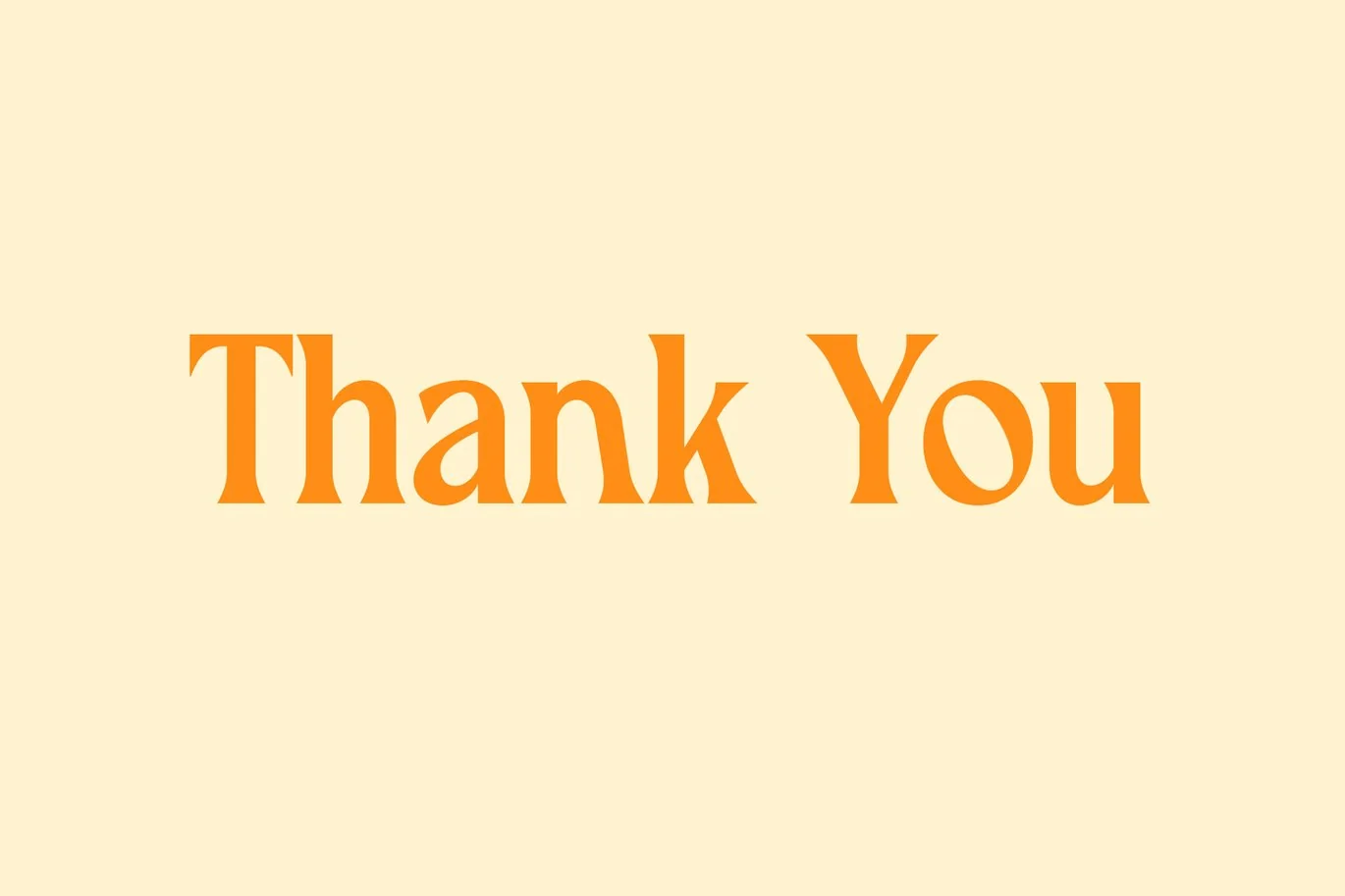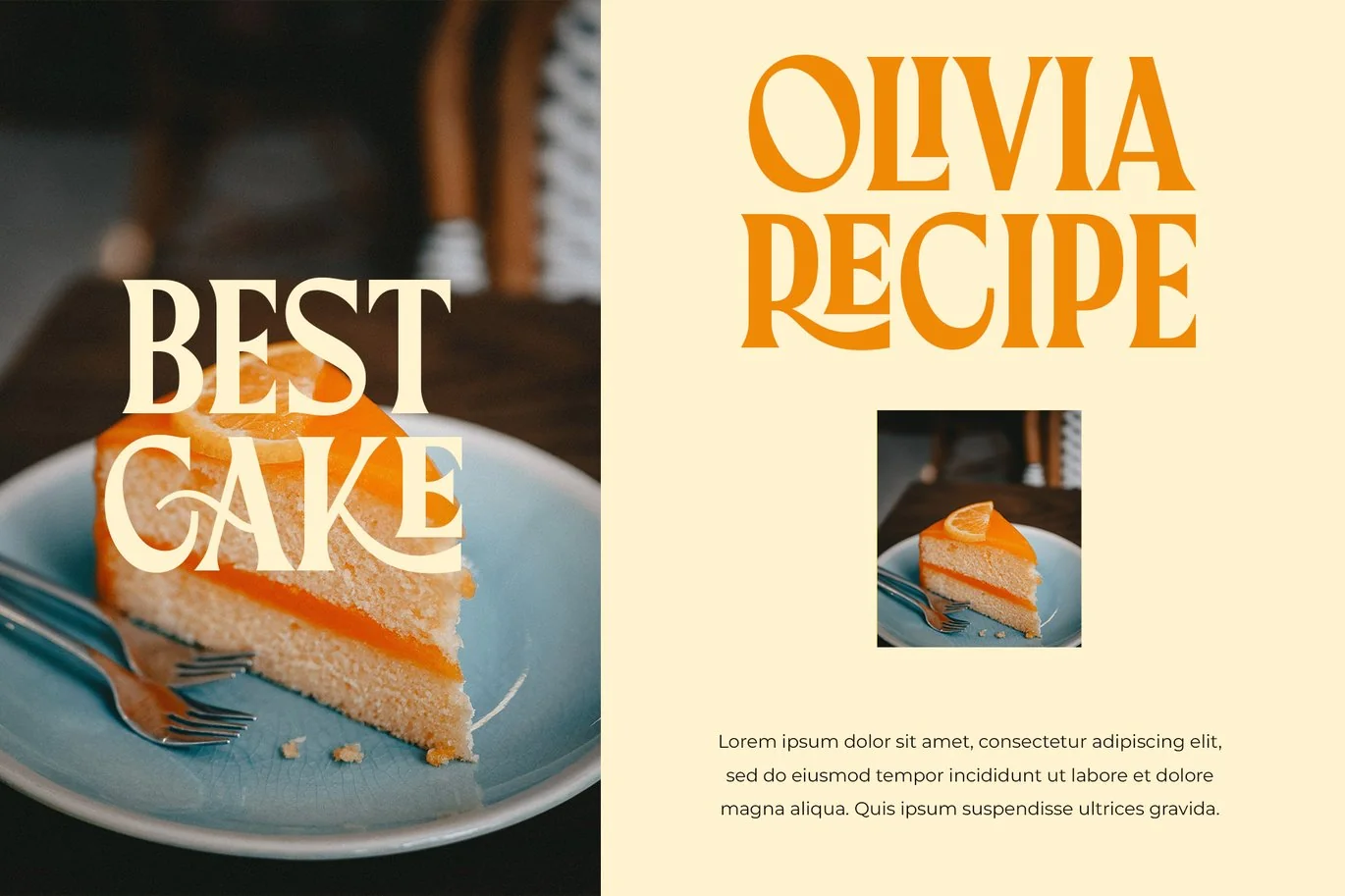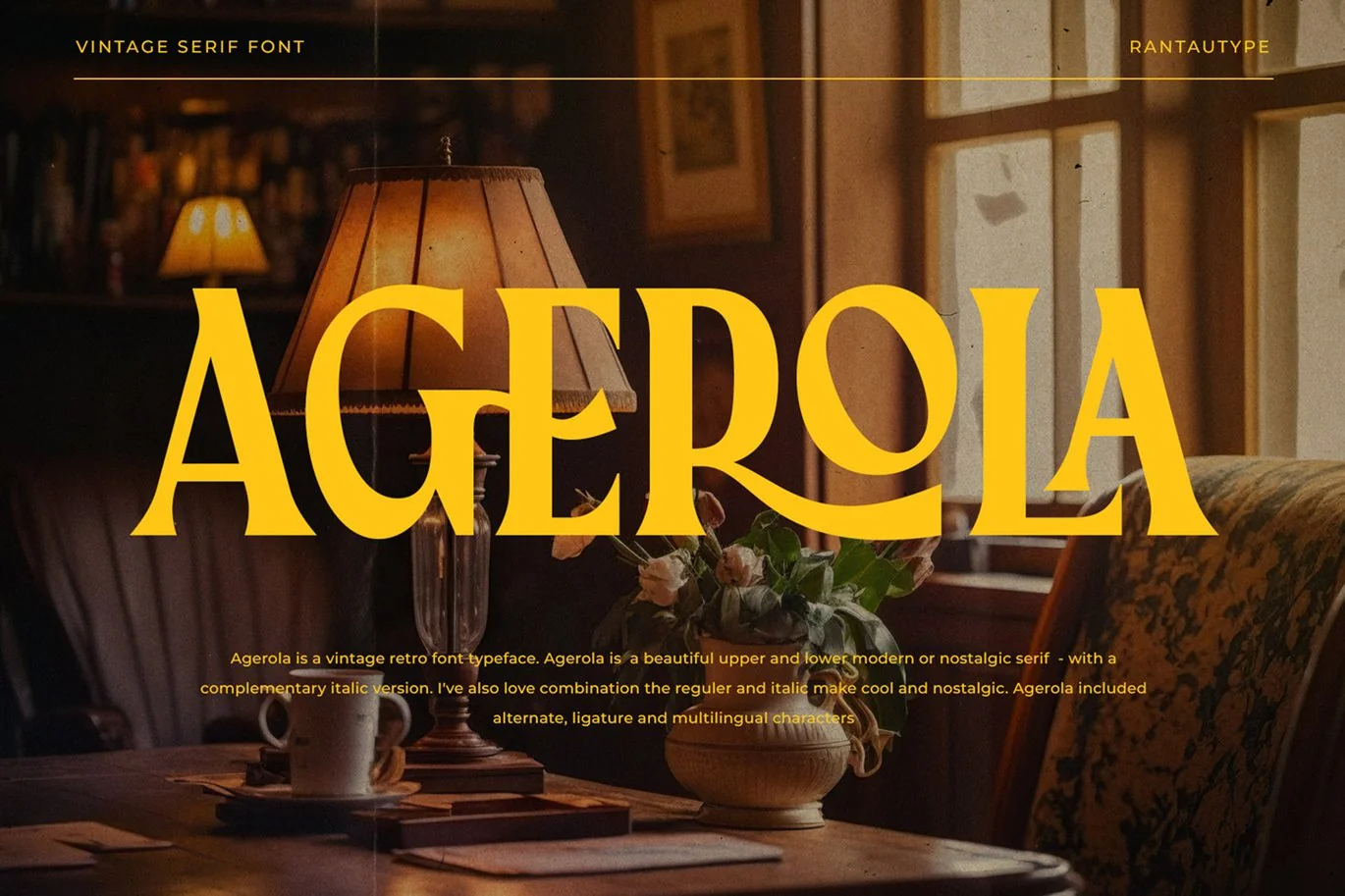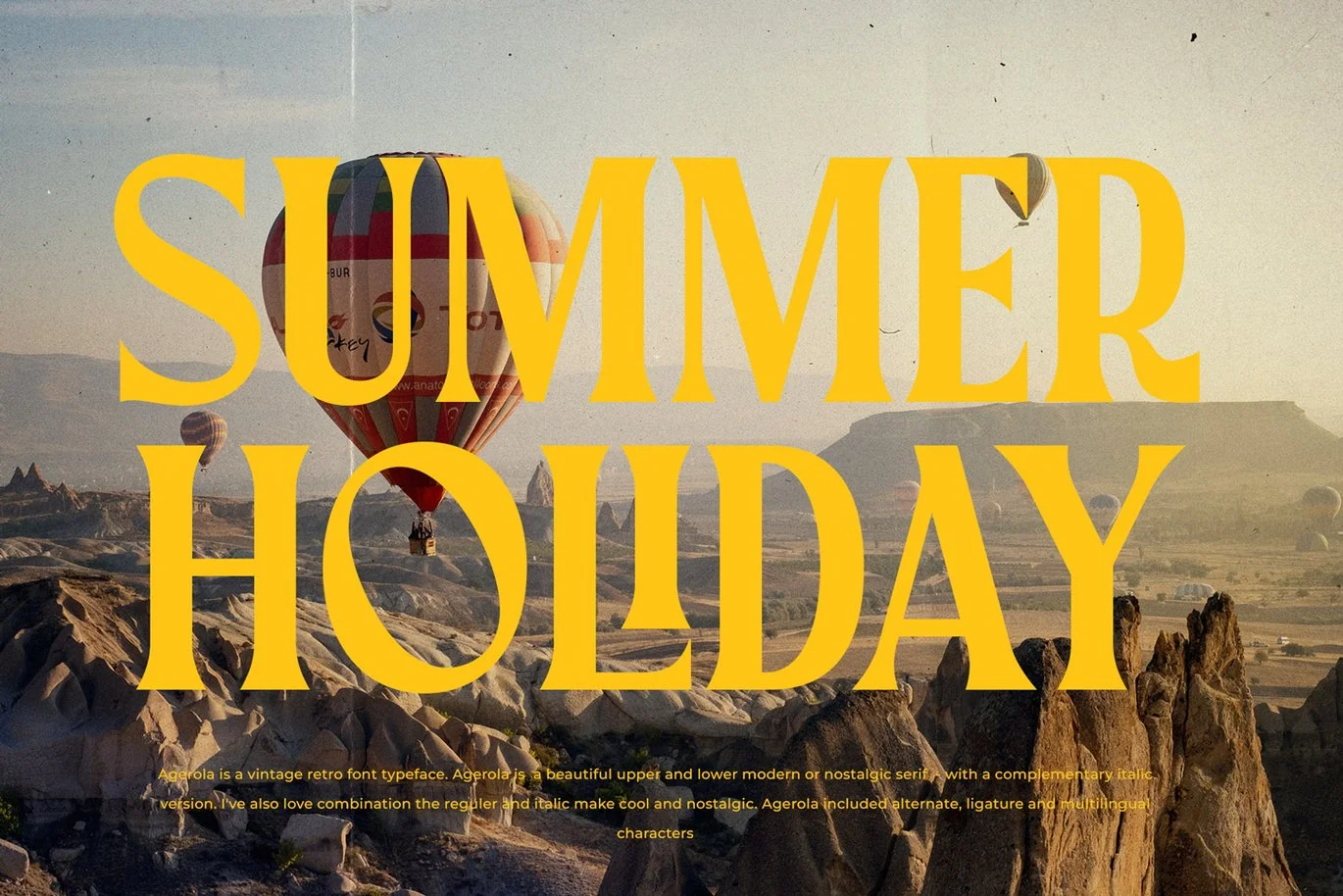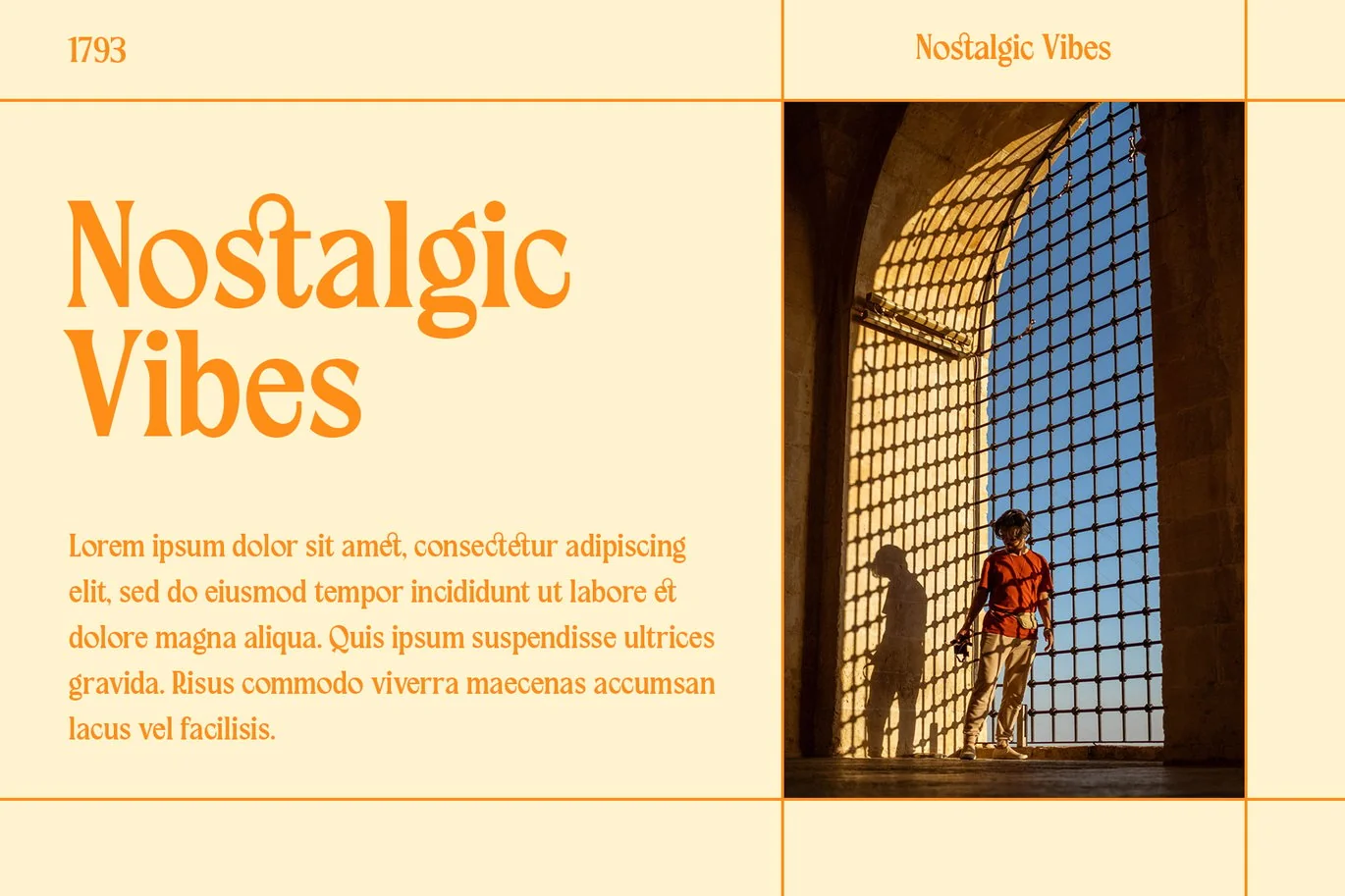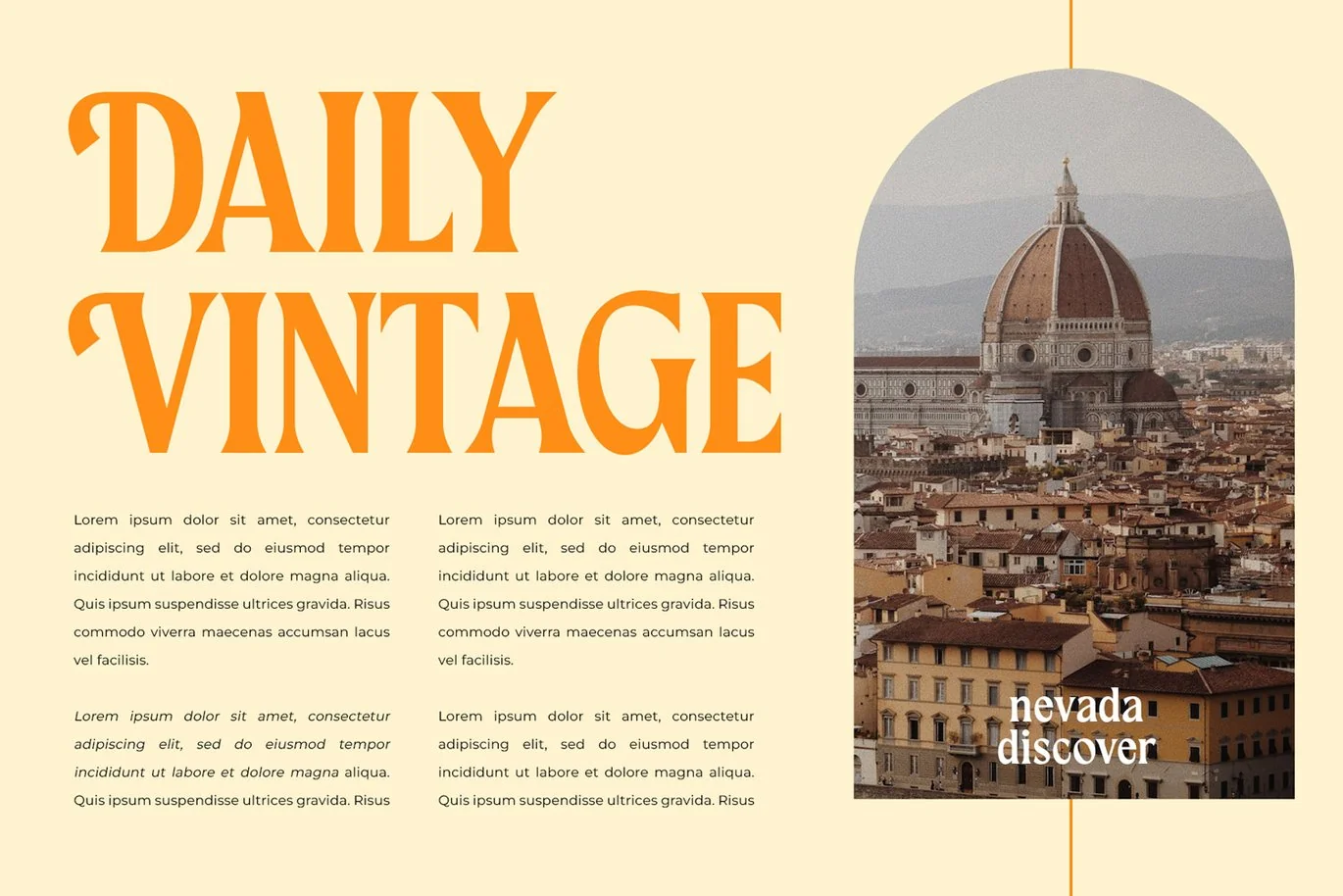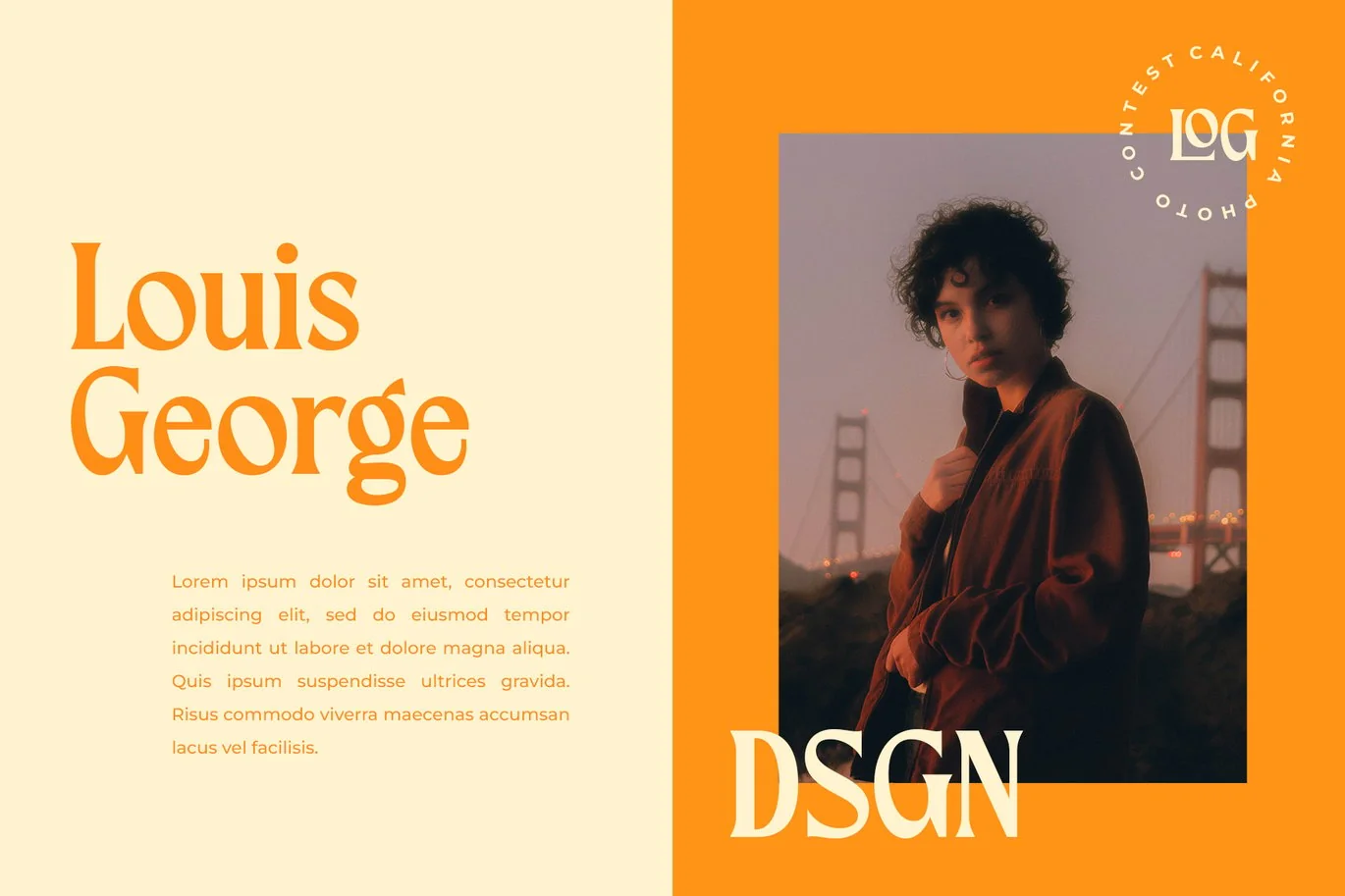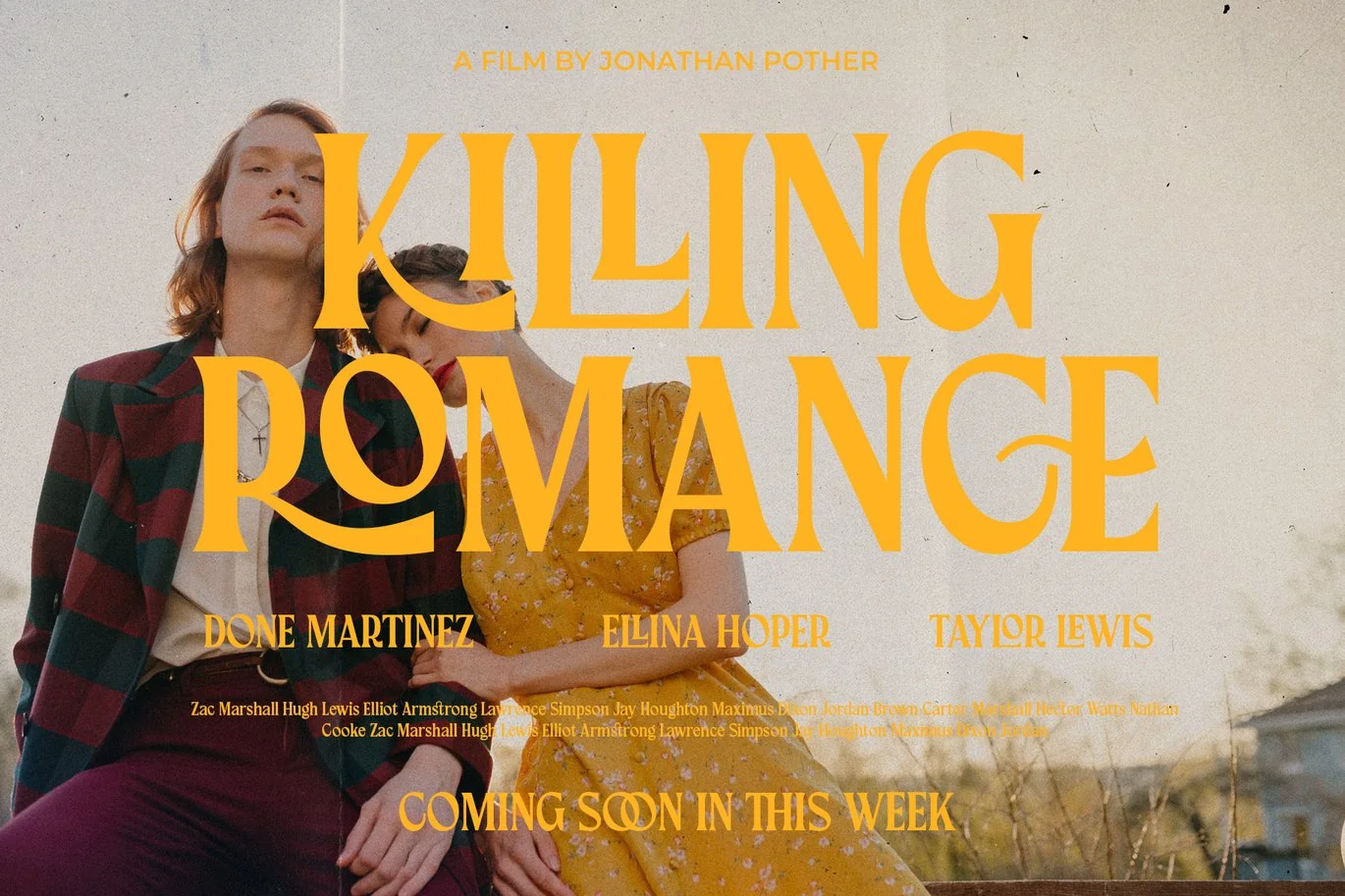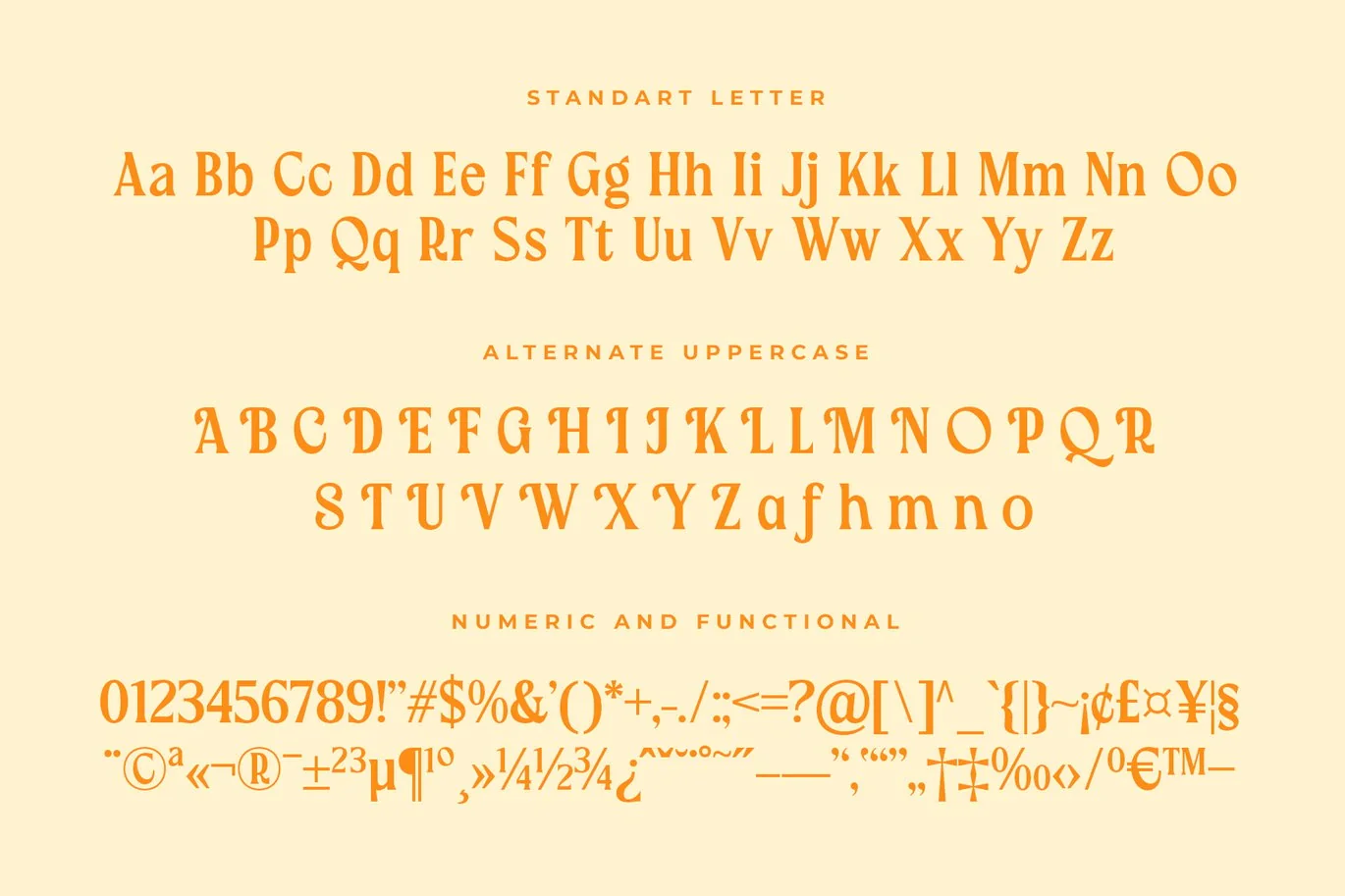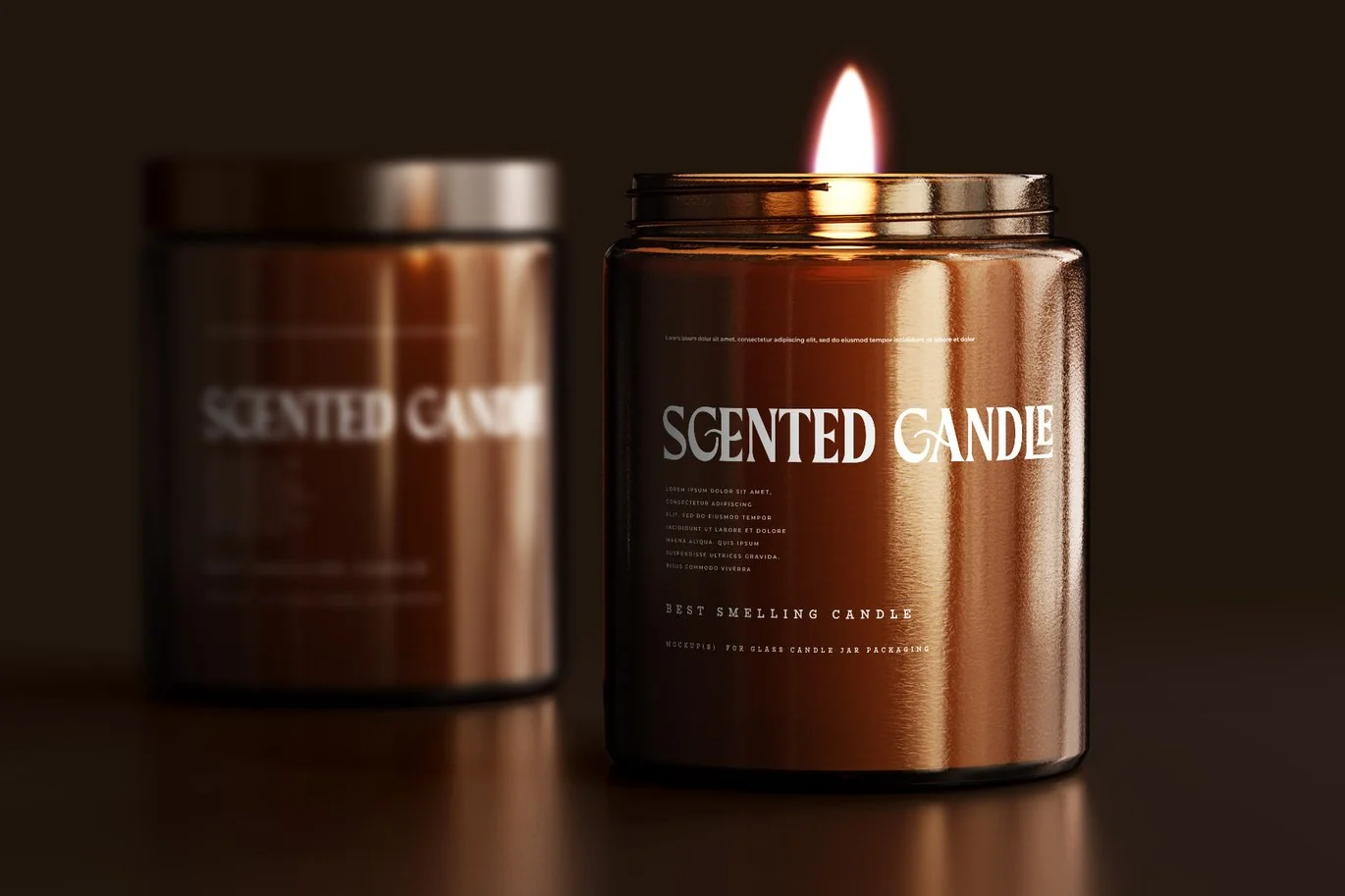
Agerola Vintage Font
Agerola – vintage retro font typeface. Agerola is a beautiful upper and lower modern or nostalgic serif – with a complementary italic version. I’ve also love combination the reguler and italic make cool and nostalgic. Agerola included alternate, ligature and multilingual characters
Agerola – perfectly suitable for creating elegant, chic, lifestyle design such as logos, title, and magazine, and more. Now you have more choice when using Agerola for typography. Agerola here to make your work to high level!!!
- Standar character A-Z and a-z
- International Multilinggual Support